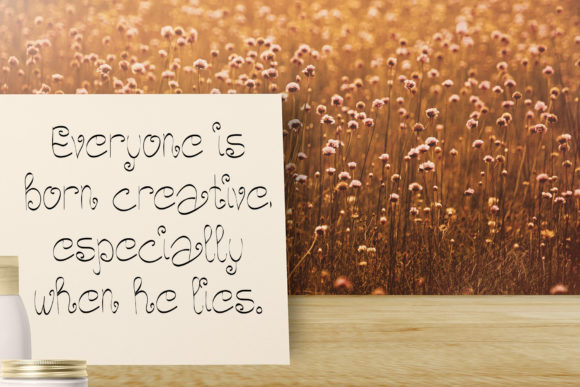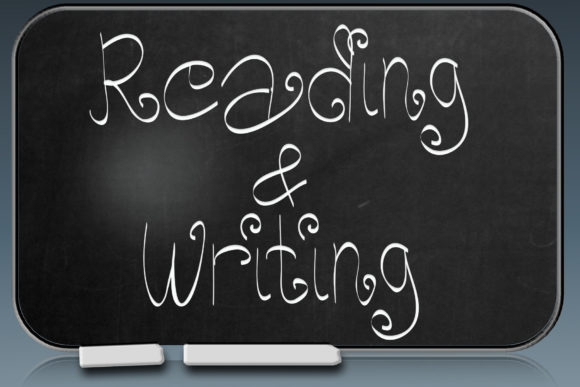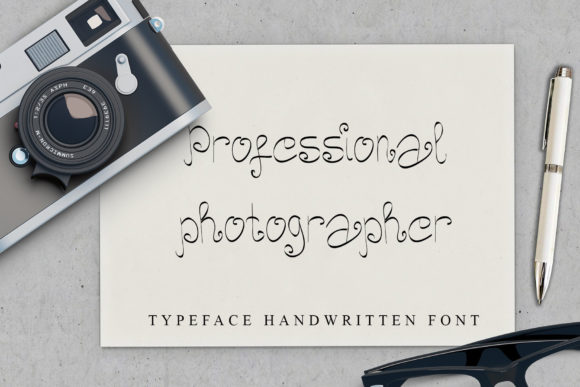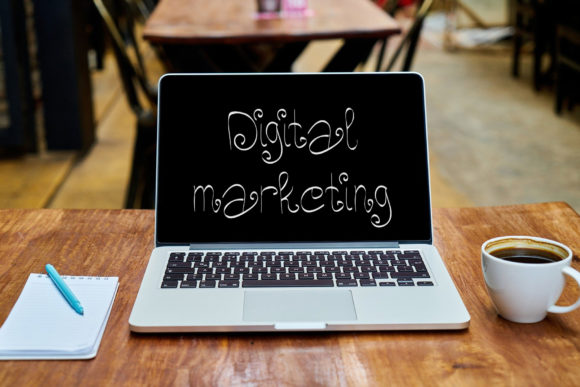
Unicorn Font
About Unicorn Font
Unicorn is a delightful and whimsical script font that embodies a relaxed and carefree vibe, adding a touch of magic to your designs. With its lovely style and unique characteristics, this font is a valuable asset for your font library, as it has the potential to elevate any creation.
The Unicorn font captures the enchanting spirit of unicorns, bringing a sense of joy and playfulness to your projects. Its flowing and graceful letters exude a sense of whimsy and fantasy, making it perfect for designs that aim to evoke imagination and wonder.
No matter the topic or theme of your project, Unicorn is incredibly versatile and adaptable. It can be used in a variety of contexts, from children’s books and toys to greeting cards, posters, and social media graphics. Its relaxed theme and charming style make it a go-to choice for adding a touch of magic and personality to your designs.
The beauty of Unicorn lies in its ability to create a sense of wonder and delight. Its elegant and curvaceous letterforms, combined with charming flourishes and swashes, make for a truly eye-catching and captivating display. Whether you’re designing a logo, branding materials, or invitations, Unicorn adds a touch of whimsy that sets your work apart.
Unicorn’s relaxed and playful nature allows it to seamlessly blend with other design elements. It can be paired with illustrations, icons, or other typefaces to create visually appealing compositions. Its versatility allows you to explore various design styles and aesthetics, from cute and vibrant to elegant and dreamy.
In summary, Unicorn is a whimsical script font that brings a touch of magic and charm to your designs. Its relaxed theme, lovely style, and playful characteristics make it a valuable asset in your font library. No matter the topic or project, Unicorn has the potential to elevate your creations and infuse them with a sense of wonder and delight.